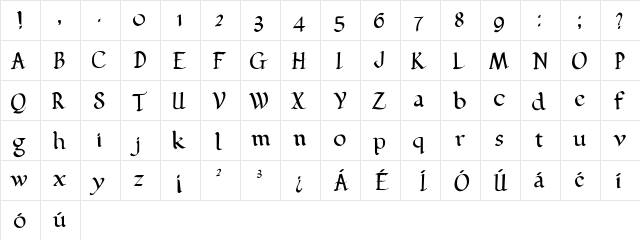
pehuensito Regular Font Preview
pehuensito Regular
Design Context for pehuensito Typeface
pehuensito is a composed and adaptable typeface that performs quietly and consistently across a wide range of design contexts.